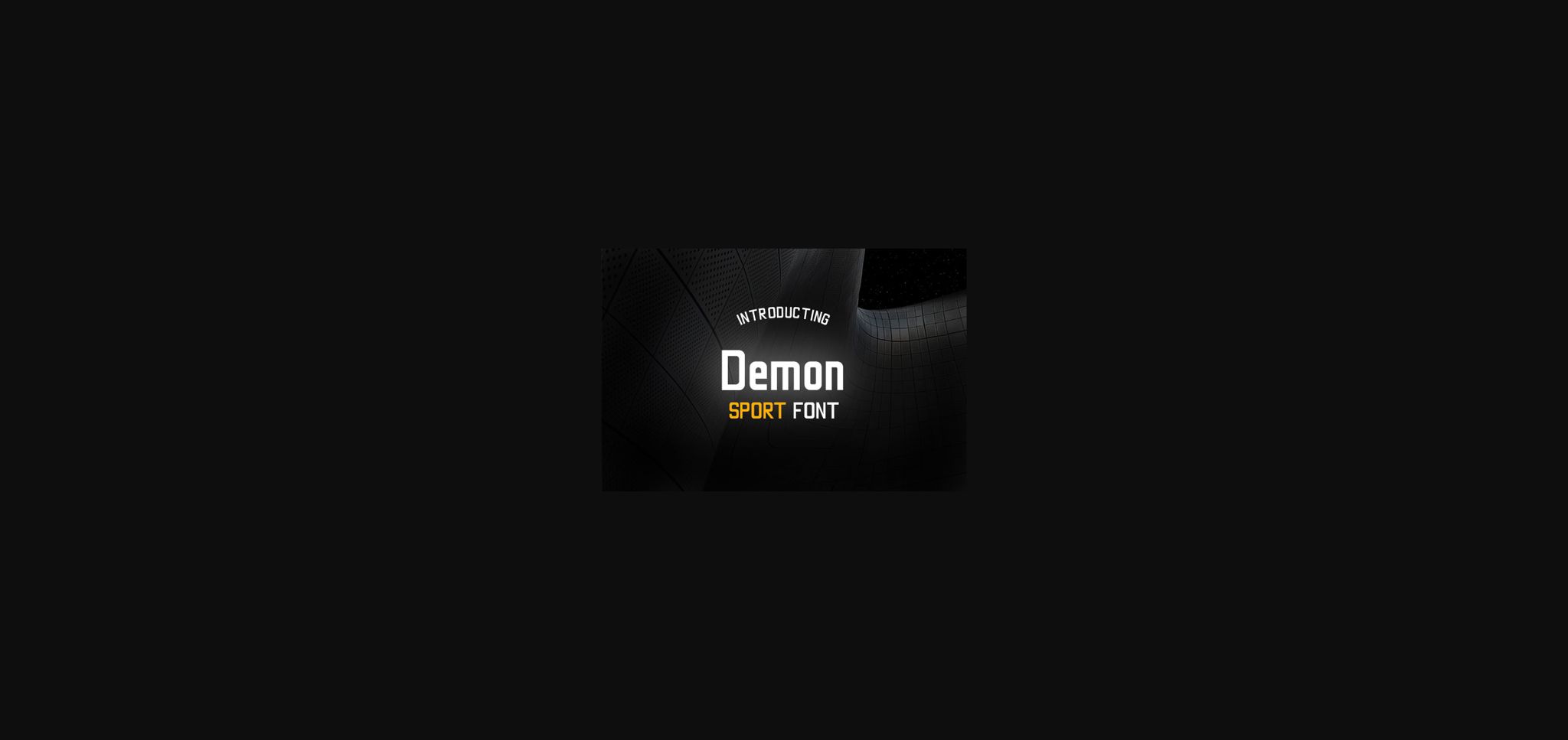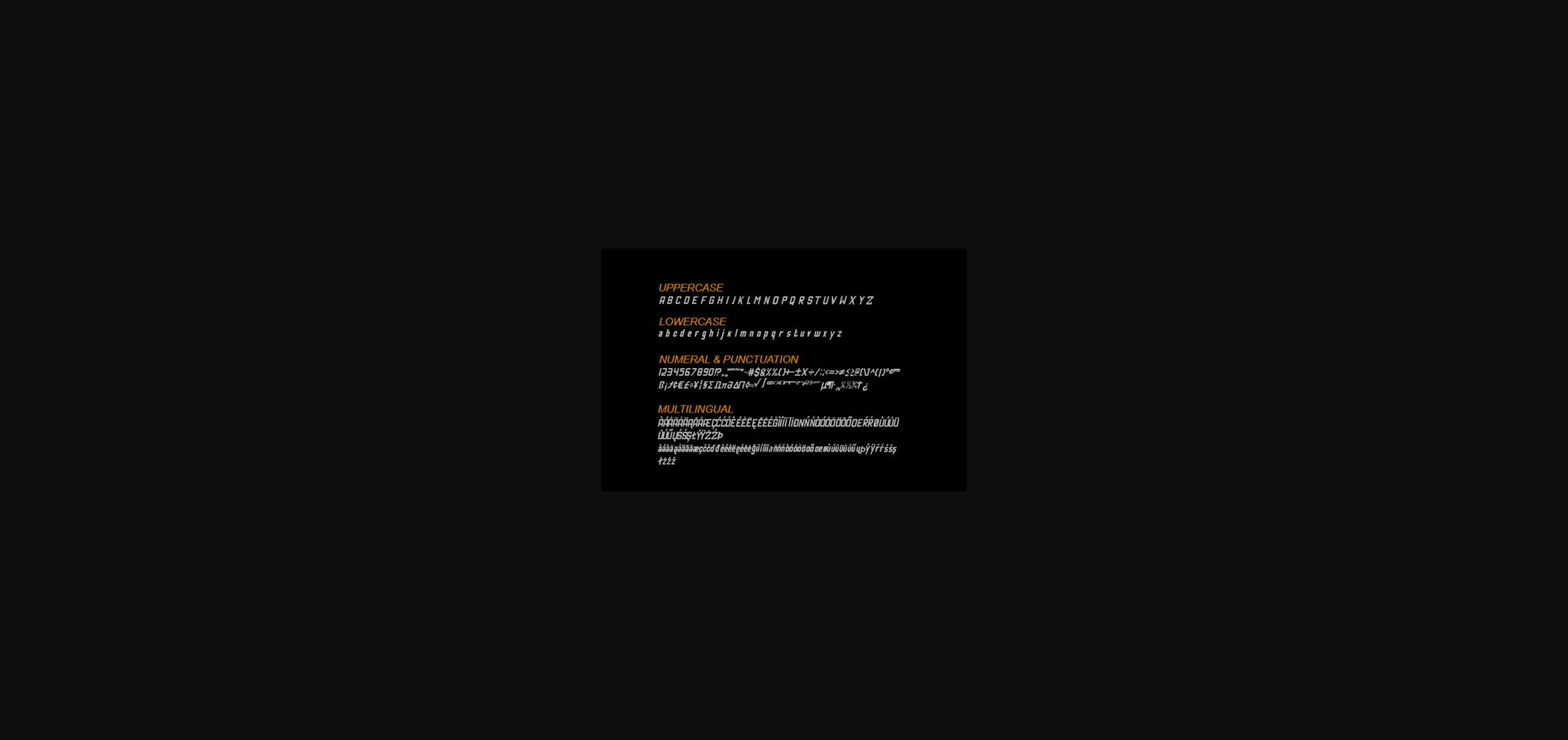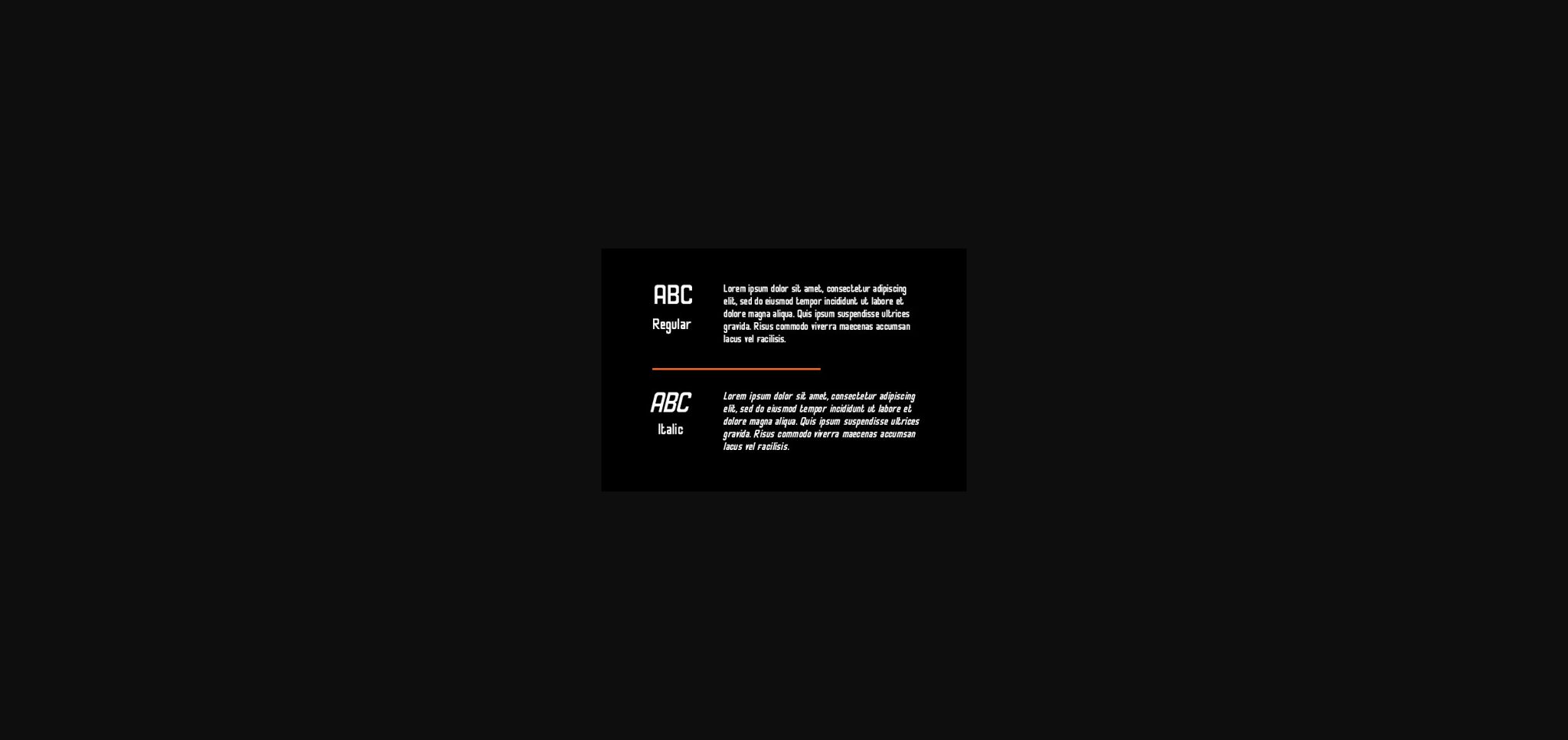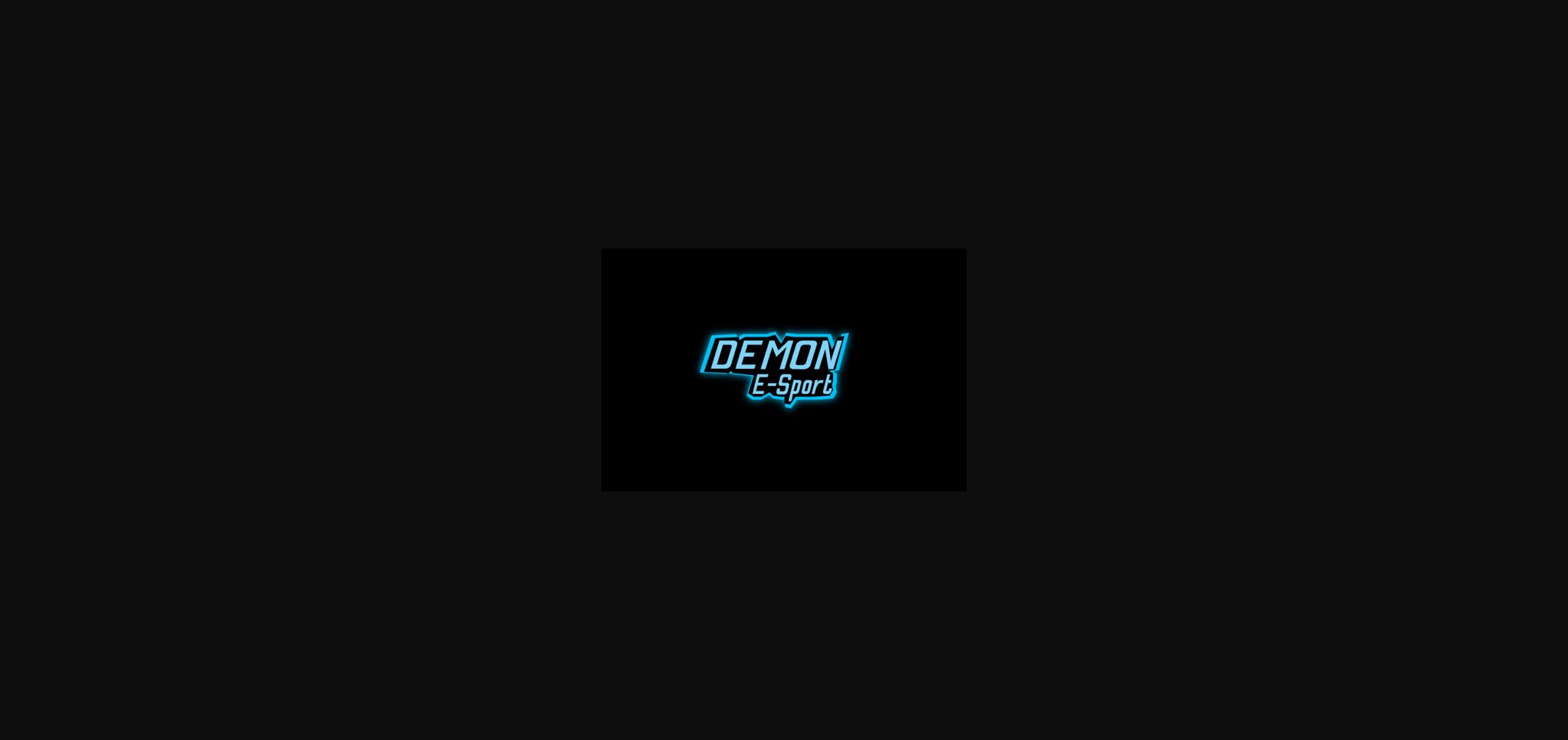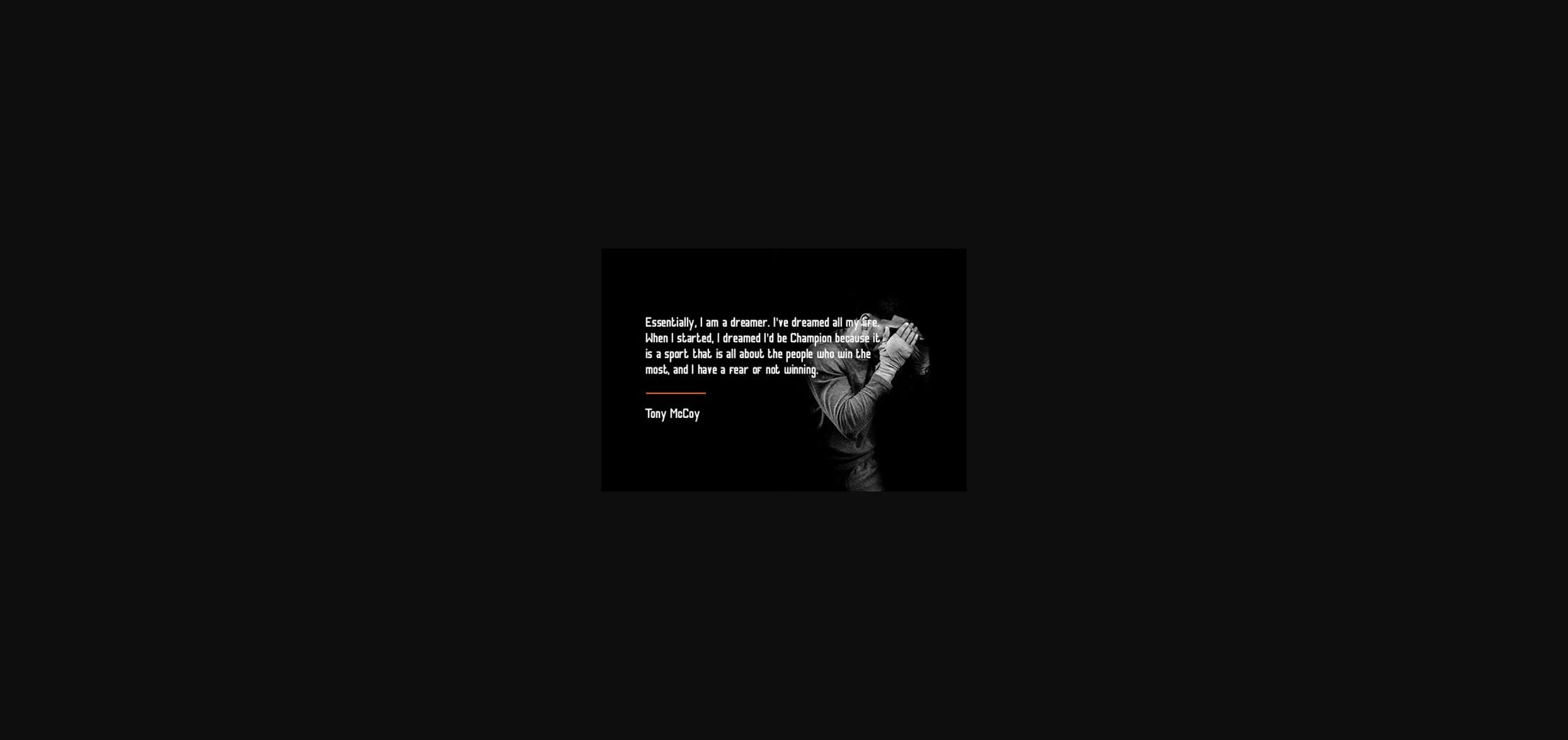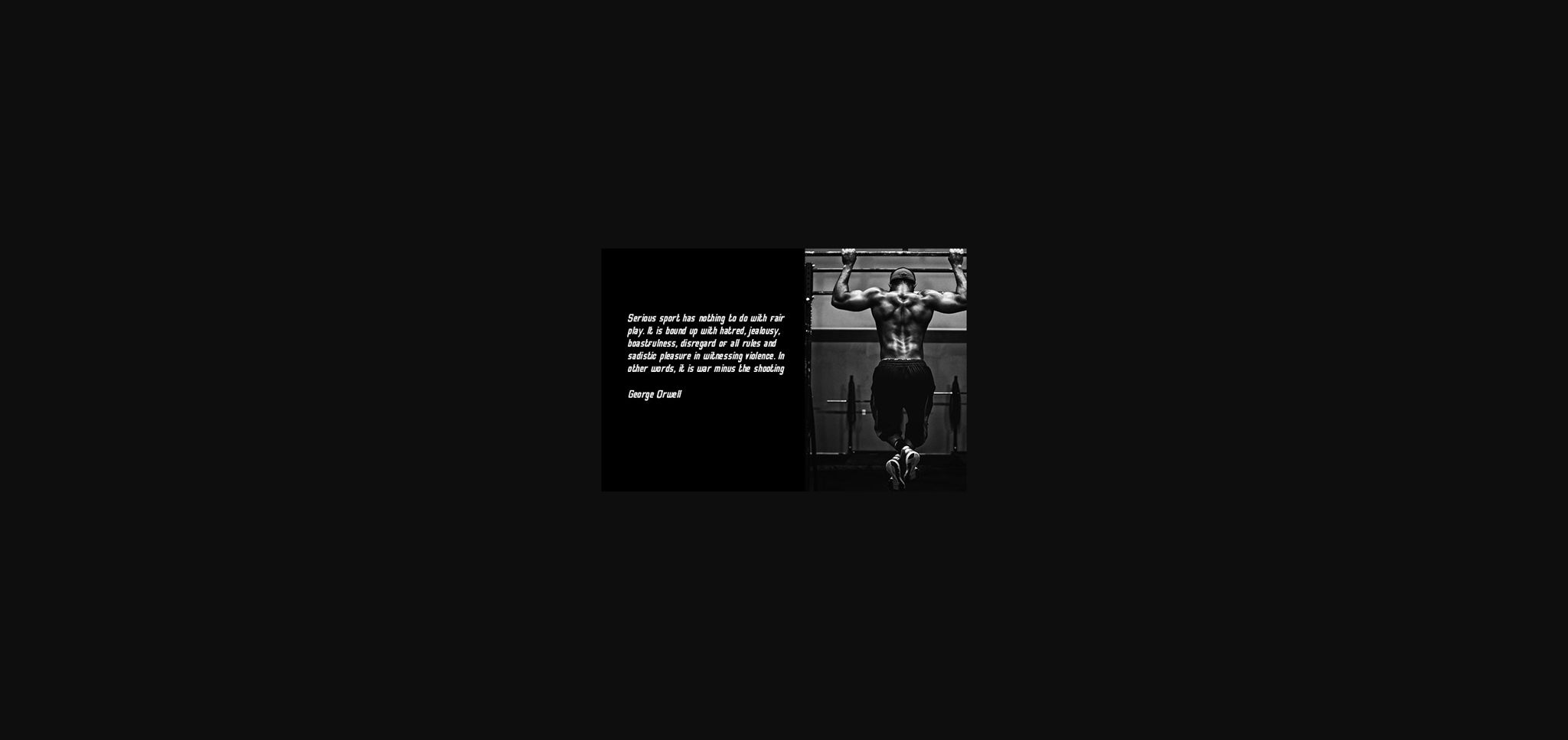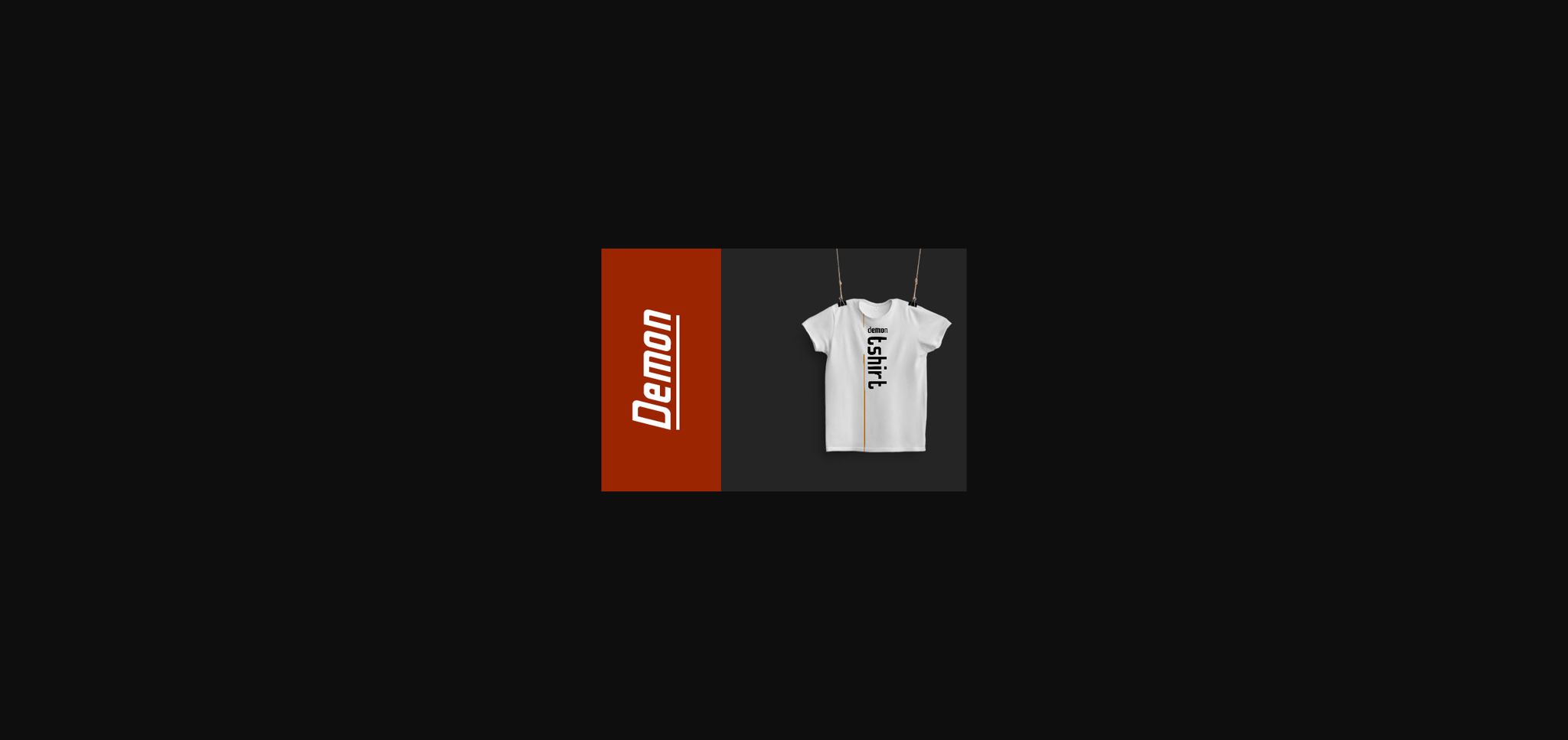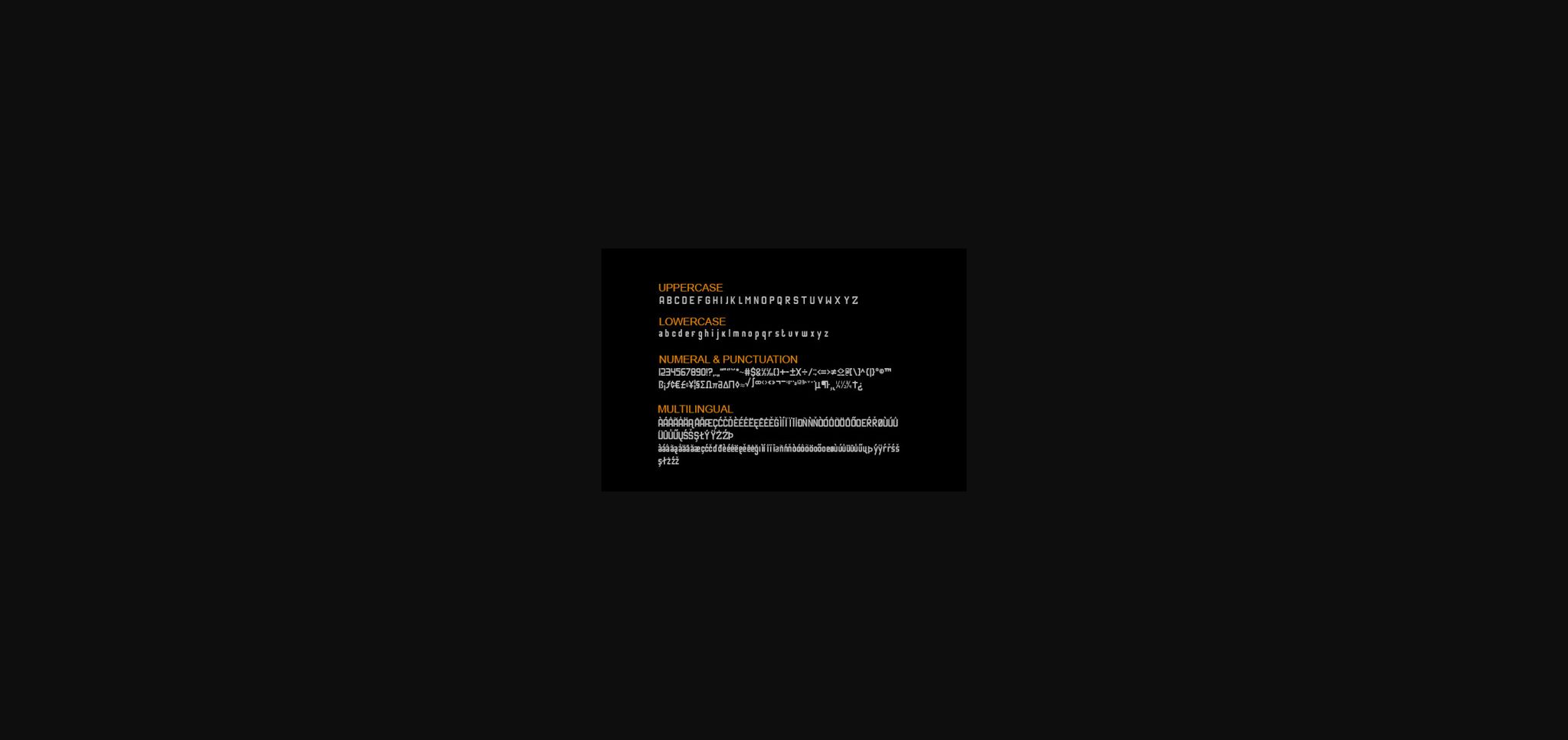
Demon Font
About Demon Font
Demon is a sans serif font designed for sports. It will give your design a sporty and elegant look. This font consists of regular and italic fonts, and is suitable for logos, titles, shirts, product designs.